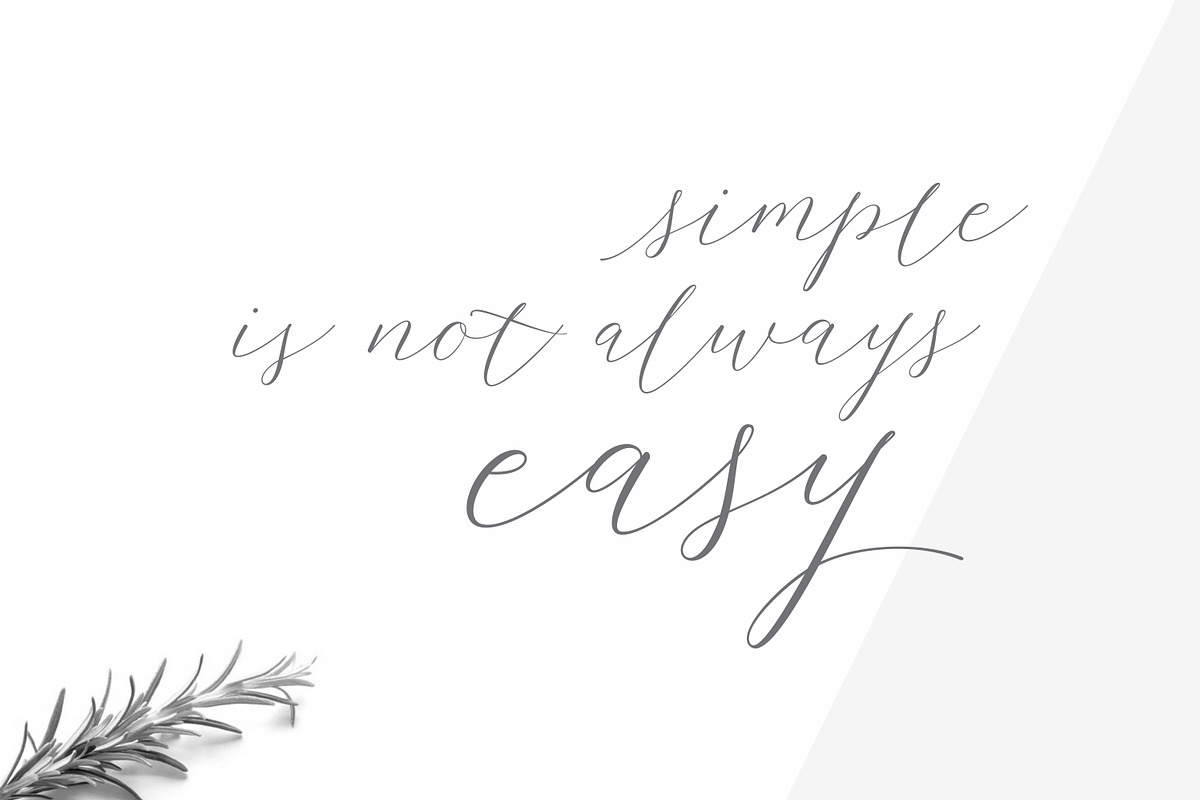
Chellaras Script - UPDATE!
Present again the my latest font, Introduce Chellaras Script!
This time is different, This font comes with a thin and italic style. Giving rise to an elegant, sweet and simple style. Made very slowly to make it look beautiful. Available 544 glyphs in it! Believe me, this font can increase your creativity in making certain designs!
With a style like this, this font will be suitable in use for logo's, branding projects, homeware designs, product packaging, mugs, quotes, posters, shopping bags, logo's, t-shirts, book covers, name card, invitation cards, greeting cards, and all your other lovely projects.
You can use this font for your job very easily. Because there are many features in it. Contains the complete set of lower and uppercase letters, punctuation, numbers, web fonts, and multilingual support. This font also includes several ligatures and alternative style Stylistic Set For those of you who have software that is capable of working OpenType (Corel Draw / Photoshop / Illustrator / InDesign).